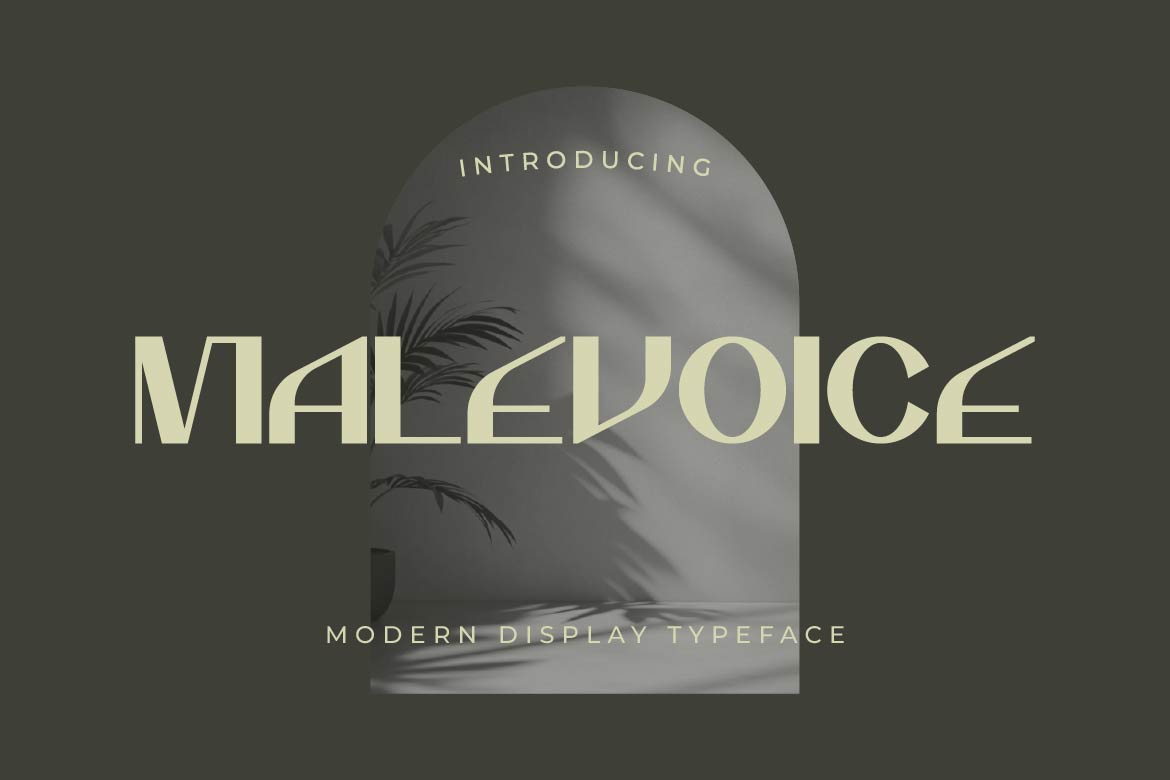
- Malevoice – Fashion Geometric Display Font
Malevoice is a modern geometric display font created for fashion-forward typography and sophisticated visual communication. Built around dramatic proportions, geometric structures, and distinctive experimental letterforms, Malevoice brings an artistic edge to contemporary design.
Its combination of clean geometry and unconventional character shapes creates a strong editorial and high-fashion aesthetic, making it especially effective when typography needs to function as a visual statement rather than simply convey information.
Malevoice is ideal for fashion magazines, luxury campaigns, editorial covers, fashion logos, boutique identities, perfume packaging, beauty campaigns, posters, album artwork, photography projects, and premium social media graphics.
The unusual construction of its letterforms gives designers the freedom to create compositions that feel experimental, artistic, and instantly recognizable. Used at large sizes, Malevoice becomes particularly striking for headlines, wordmarks, campaign titles, and statement typography.
From an avant-garde fashion editorial to a contemporary luxury identity, Malevoice gives your design a distinctive voice that feels current, sophisticated, and intentionally unconventional.
Malevoice — geometric typography with a fashion-forward attitude.